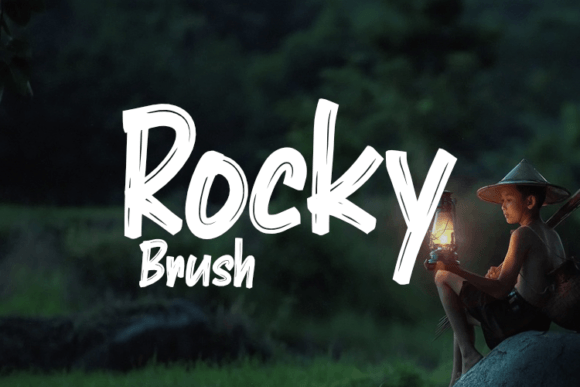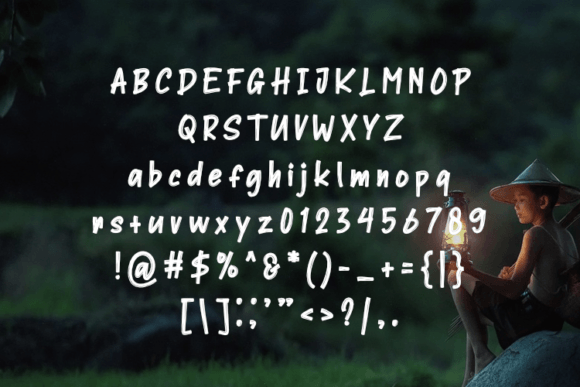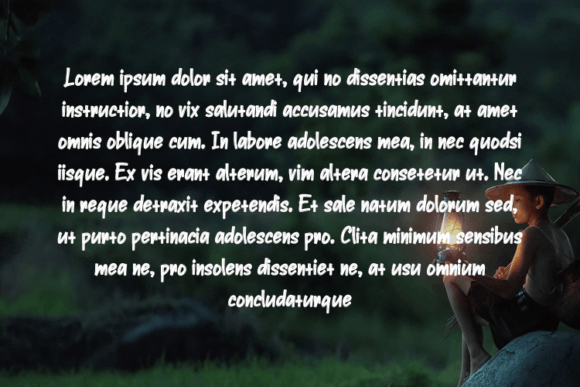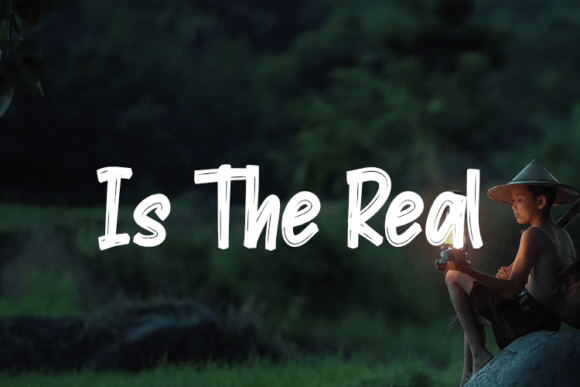
Rocky Brush Font: A Bold & Rustic Display Font for Cricut
About the Rocky Brush Font
The Rocky Brush Font is here to transform your projects with its distinctive character and style. Unveil the vibrant personality of your designs with the “Rocky Brush” font. Designed with a bold, spirited edge, it infuses every creation with life, making it perfect for t-shirt designs, clothing line branding, and any design project that demands an authentic touch. With its robust strokes and dynamic nuances, “Rocky Brush” encapsulates modern design aesthetics while preserving that raw, organic feel. Elevate your artistic expressions with the signature charm of the “Rocky Brush” font.
Its bold, hand-painted aesthetic makes Rocky Brush ideal for headlines, short taglines, and logos where a strong, expressive feel is desired. It excels in branding for products emphasizing handcrafted quality or a rebellious spirit—think artisanal goods, streetwear, or music festivals. Avoid using it for body text or UI elements; the irregular stroke weight makes extended reading difficult.
Pair Rocky Brush with a clean sans-serif like Montserrat for a modern contrast, or a classic serif like Playfair Display for a more traditional, yet equally impactful pairing. For a softer touch, a delicate script like Great Vibes can complement its rough edges.
The font’s overall personality is bold, energetic, and slightly rebellious, lending itself to brands that wish to convey authenticity and a handcrafted feel.
Rocky Brush Font Usage Examples
Rocky Brush Font Example